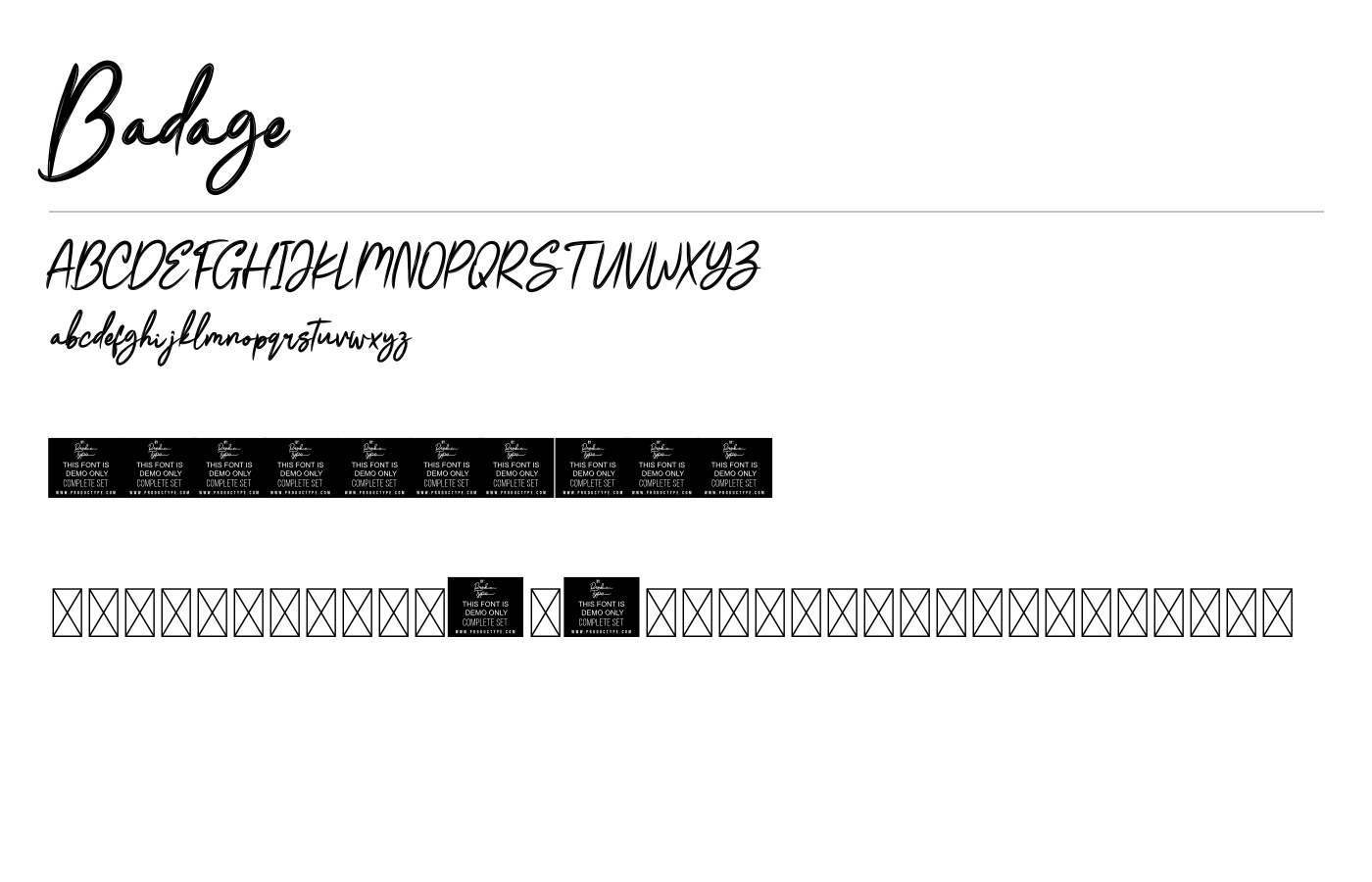
Badage is a lively and modern script font featuring fluid, hand-drawn strokes that bring a natural, personal touch to any design. Its elegant, slightly bold weight and smooth, connected letterforms make it perfect for branding, invitations, and creative projects needing a warm, approachable feel. This font works well for logos, headlines, and packaging where a stylish yet casual vibe is desired.
Badage Font
About Badage Font